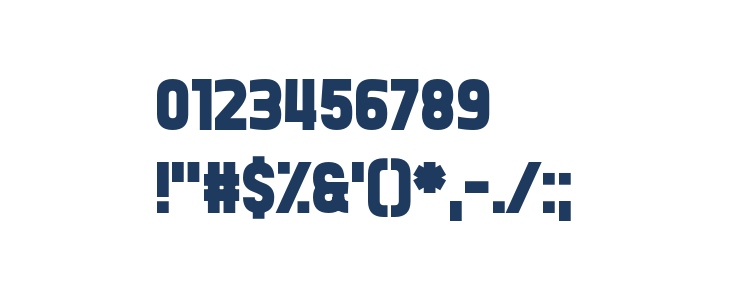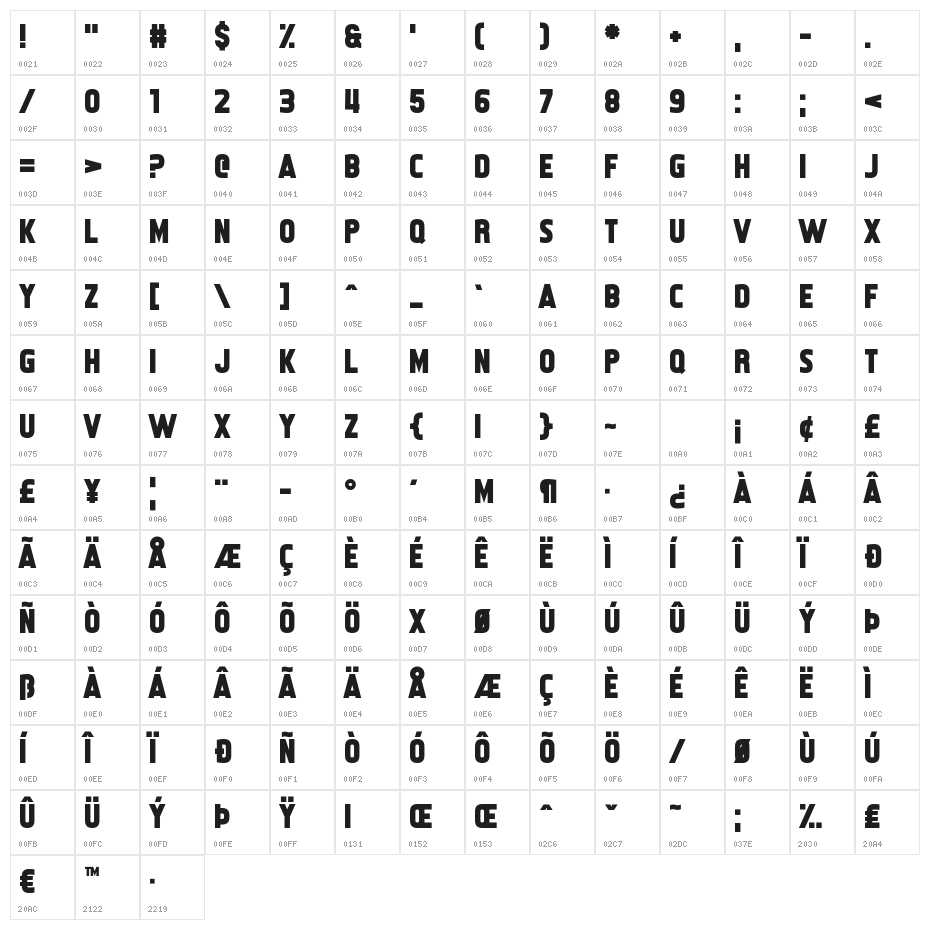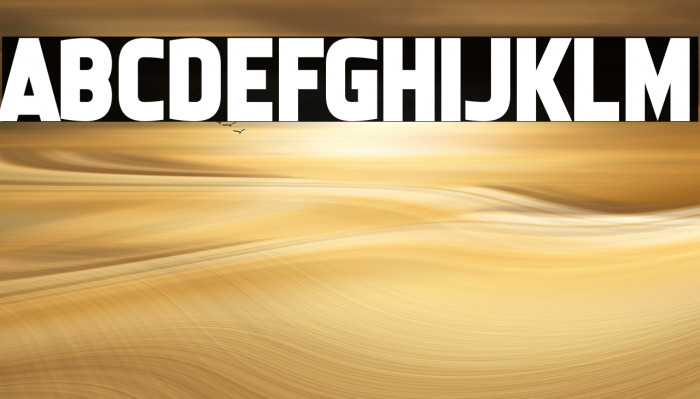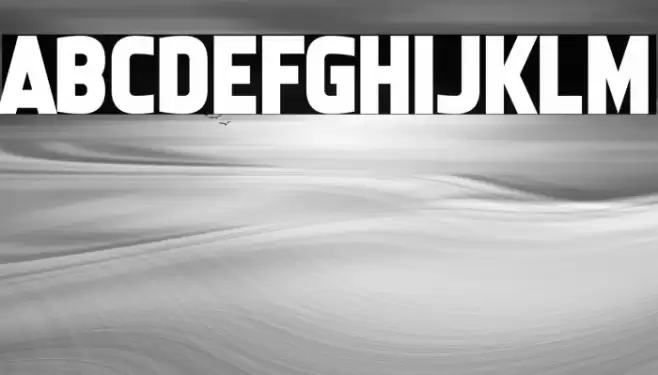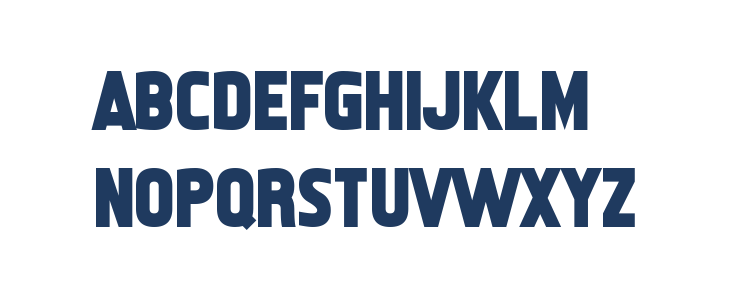
She Smiles Font
She Smiles Description
This font is characterized by its bold and impactful presence, featuring thick, uniform strokes that convey strength and confidence. The uppercase letters are particularly striking, with a blocky, geometric design that ensures high visibility and readability. The numerals and special characters maintain the same robust style, making them ideal for attention-grabbing headlines or signage. The font's design is modern and clean, with a slight industrial feel, suitable for a variety of contemporary applications.